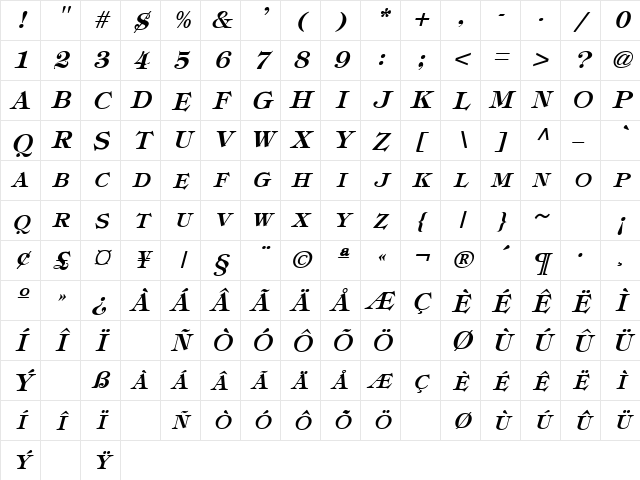
TiffeyExpert Bold-Oblique
Style: Bold-Oblique
TiffeyExpert Family
Design Context for TiffeyExpert
TiffeyExpert is a composed and adaptable typeface that performs quietly and consistently across a wide range of design contexts. The slanted form adds forward momentum and visual energy. Its bold stroke weight gives it real presence on the page.